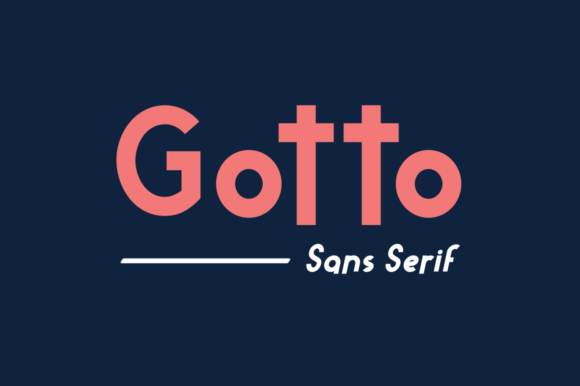
Welcome to the realm of Gotto, a sans-serif font that captivates with its pure essence and elegance. Designed by the acclaimed attypestudio, Gotto is not just a collection of letters; it's an artistic expression of modern simplicity. Its clean lines and minimalistic curves dance together harmoniously, creating a visual symphony that's as captivating as it is versatile.
Imagine your words, adorned with the grace of Gotto, leaping off the page and into the hearts of your readers. Its balanced proportions and geometric shapes evoke a sense of timelessness and contemporary flair, making it a timeless choice for any design endeavor.
Whether you're crafting a heartfelt letter, composing an informative report, or designing a captivating presentation, Gotto becomes your trusted companion, elevating your words with its understated beauty. Its clarity and legibility ensure your message shines through, allowing your ideas to take center stage.
Dive into the world of Gotto and discover a font that's more than just a visual tool - it's an extension of your creativity, a reflection of your impeccable taste. Let Gotto be the brush that paints your words with elegance, the chisel that carves your ideas into the minds of your audience. Experience the magic of Gotto today and unveil the true power of simplicity.